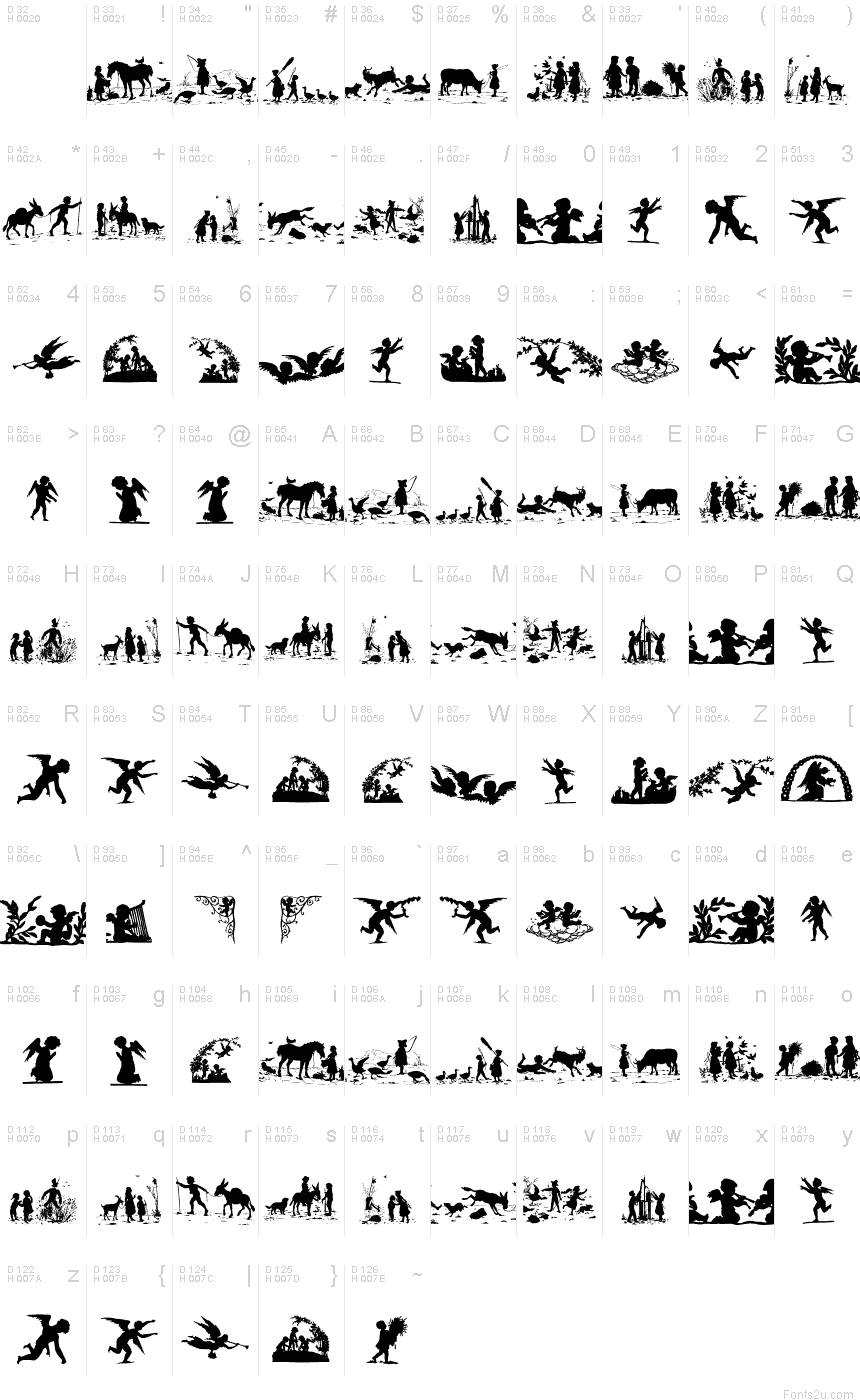
KinderUndAndereEngel
Kinder Und Andere Engel by Manfred Klein is a free storybook silhouette dingbat font. Its solid cut-paper figures show children at play, animals, plants, birds, and small narrative gestures, with lively changes of scale that make each symbol feel like a miniature illustration.
Children's publishing is its most convincing home, since the figures can turn chapter openings, activity books, and fairy-tale covers into compact scenes rather than simple ornament. The same pastoral imagery suits nursery decor and family event invitations, particularly for parents, teachers, and young readers drawn to warm, familiar storybook subjects, traditional outdoor storytelling, and scenes of kindness.